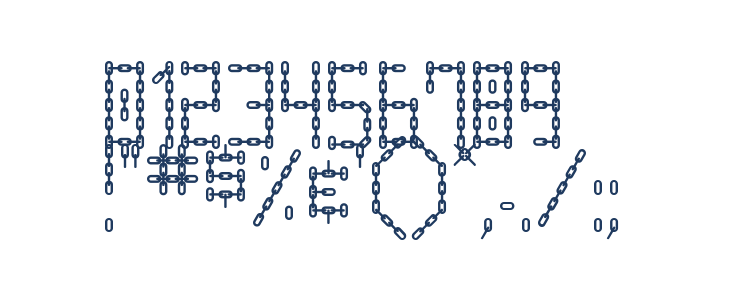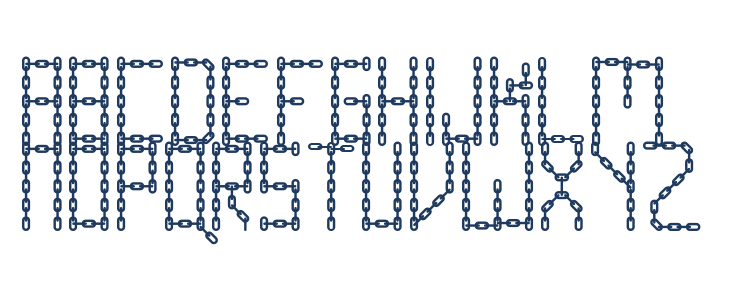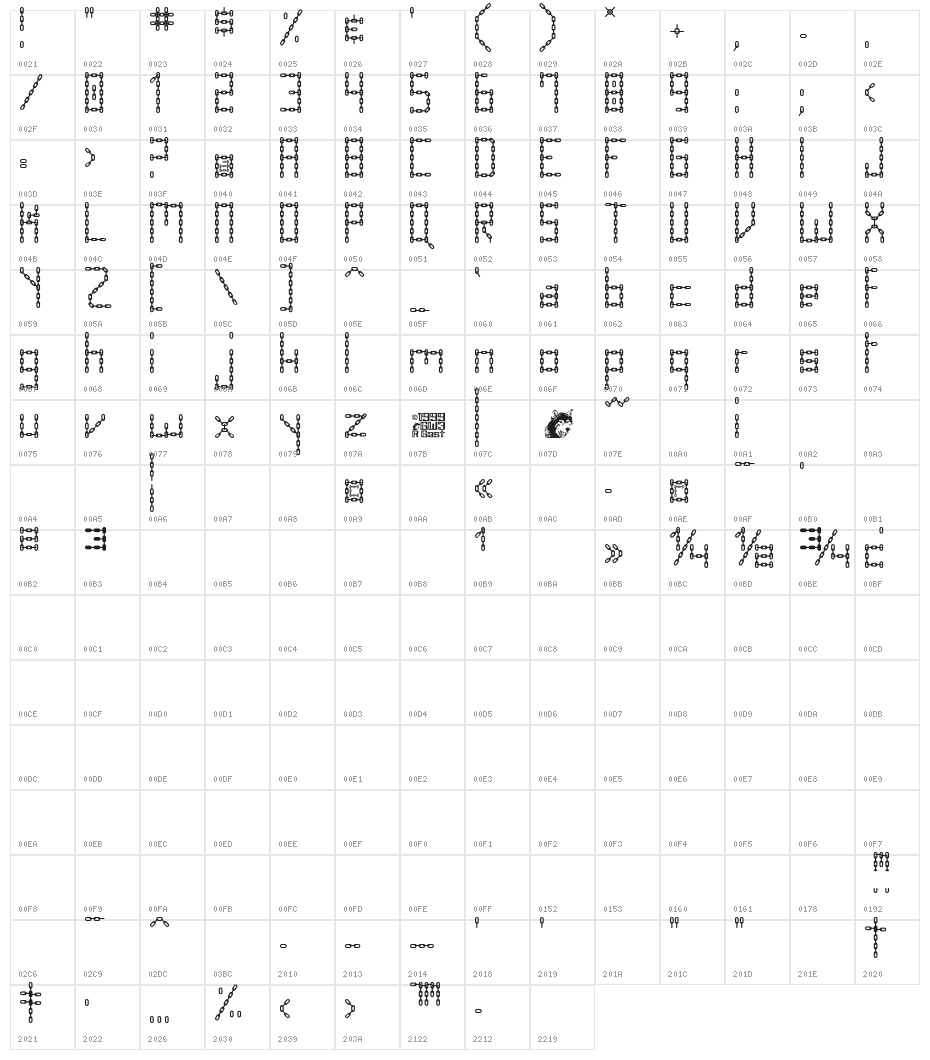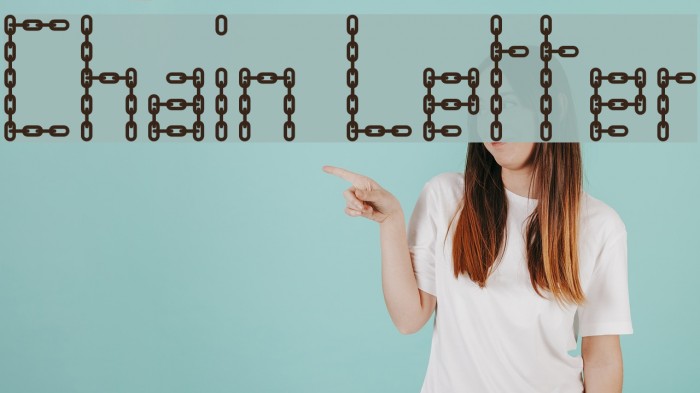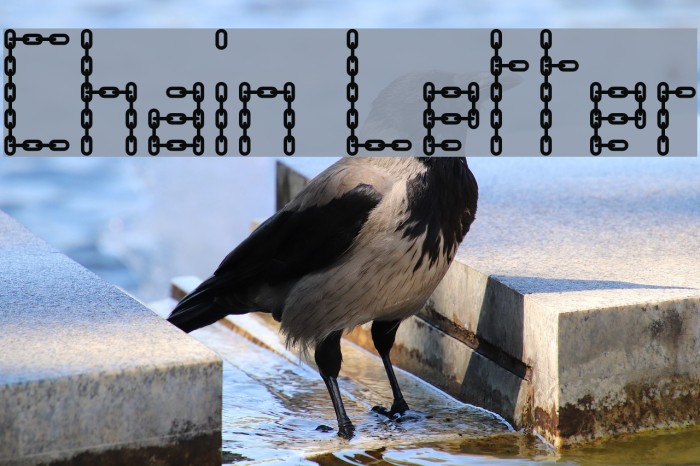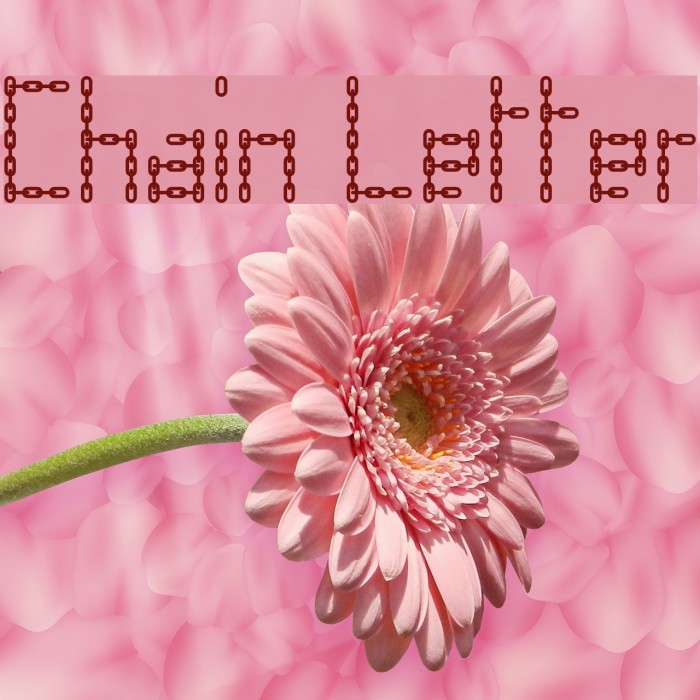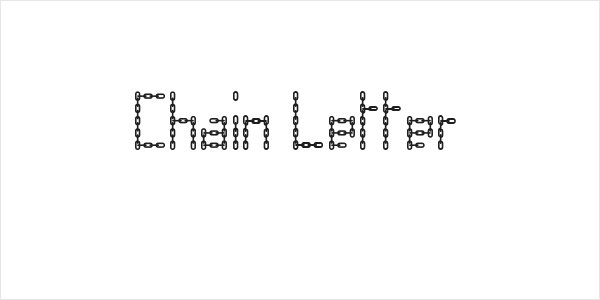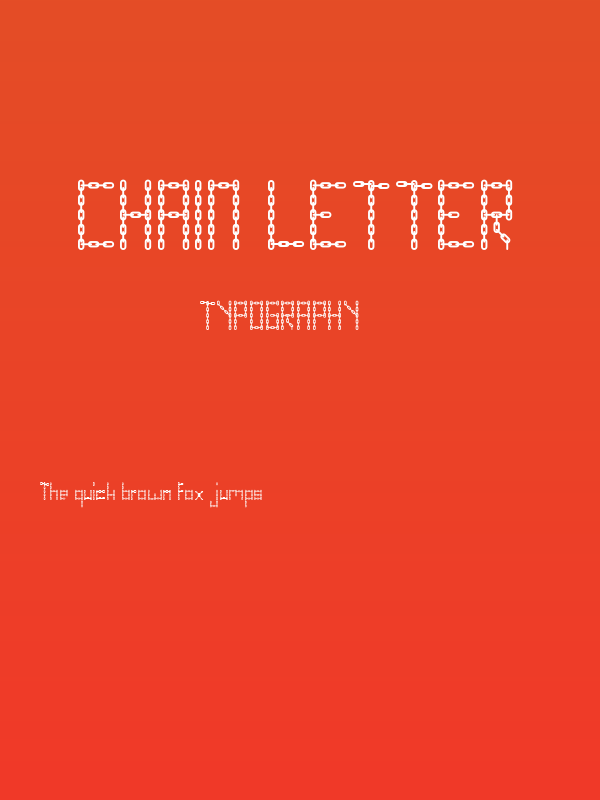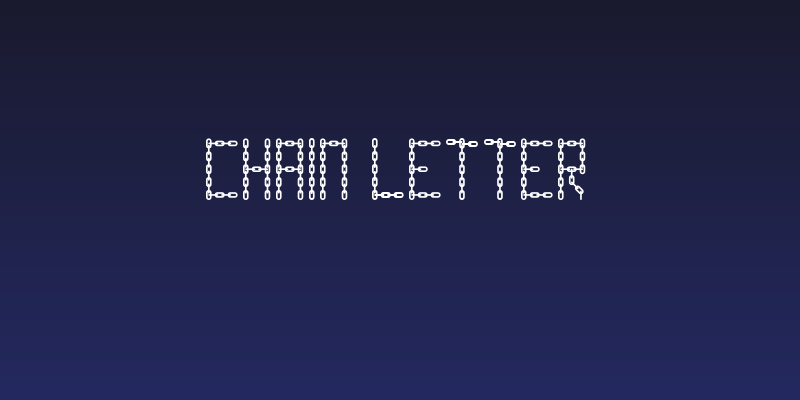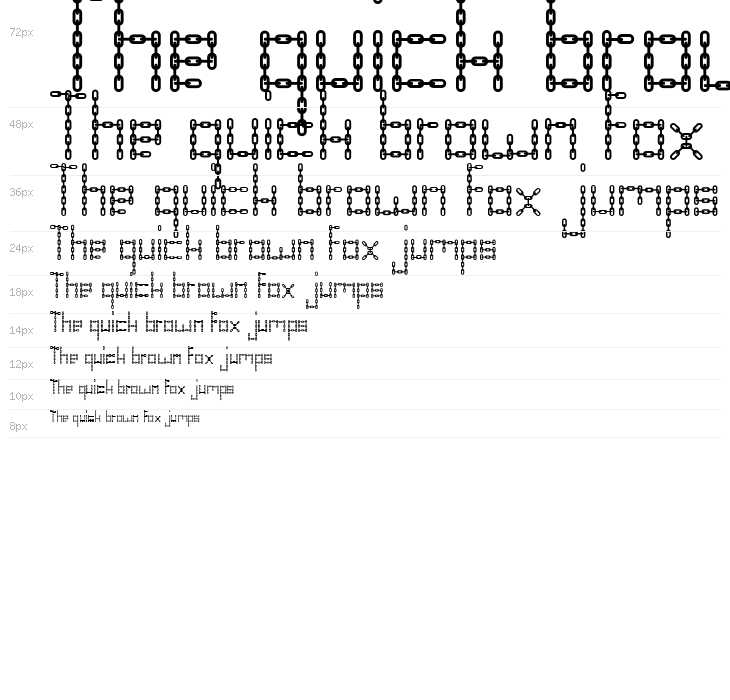
Chain Letter Font
Chain Letter Description
This unique font is designed to resemble interconnected chains, creating a striking visual effect. Each character is composed of small chain links, giving it a bold and industrial appearance. The uppercase and lowercase letters maintain a consistent style, with rounded edges and uniform link sizes. Numbers and special characters follow the same design, ensuring a cohesive look across all elements. The font's intricate design makes it ideal for projects that require a strong, eye-catching aesthetic. Its decorative nature is perfect for themed events, posters, or branding that seeks to convey strength and unity.